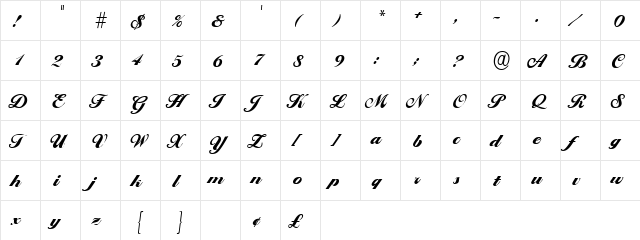
GE Primus Script Normal
Design Context for GE Primus Script Typeface
GE Primus Script brings a calligraphic fluidity to the page — its connecting strokes and expressive curves give it an unmistakably human quality.
Font Pairing: Combine GE Primus Script with a simple geometric sans for maximum contrast — the tension between flowing curves and clean structure is a classic typographic pairing.
Pro Tip: Use GE Primus Script for short runs of text — names, titles, or taglines. Extended body copy in script faces tires the eye quickly.